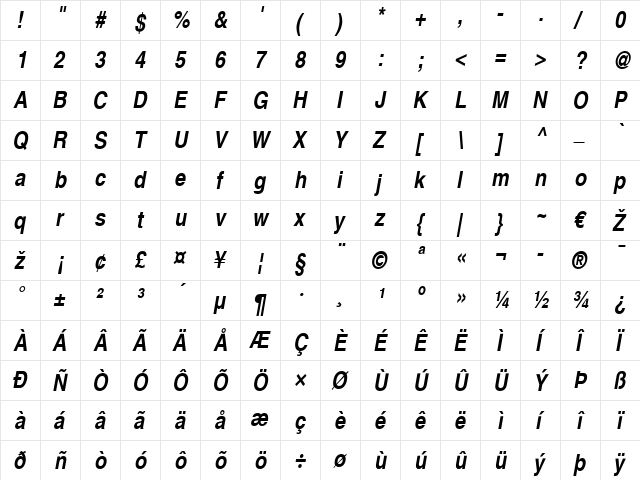
Helvetica LT Narrow Bold Italic Font Preview
Design Context for Helvetica LT Narrow Typeface
Helvetica LT Narrow offers clean, dependable letterforms without strong stylistic allegiance, making it a practical choice for designers who need flexibility. Its italic angle brings a sense of urgency and motion to the letterforms. The heavy weight commands attention and anchors typographic hierarchies. The condensed width makes it efficient for tight spaces without sacrificing legibility.
Pro Tip: Use Helvetica LT Narrow for emphasis, pull quotes, and subheadings where its slanted energy can add rhythm to the layout.